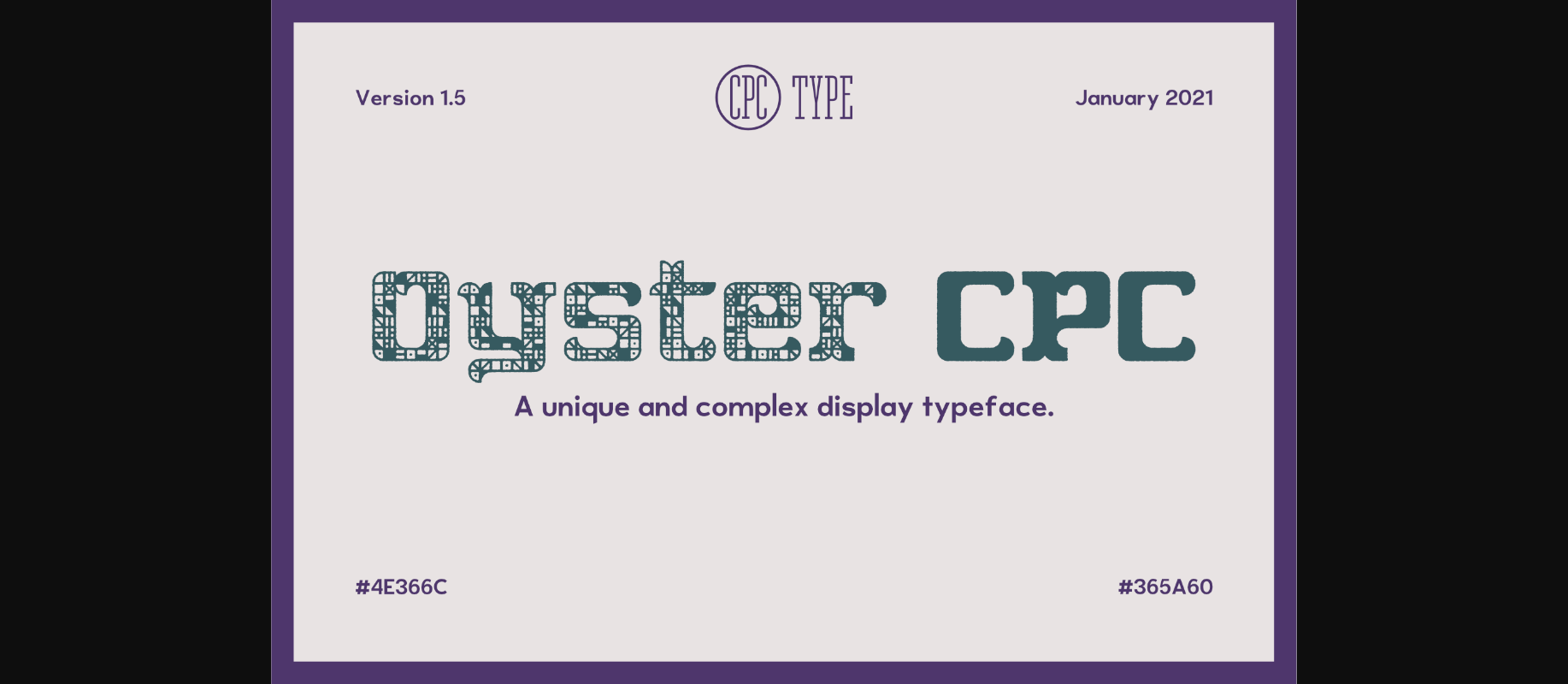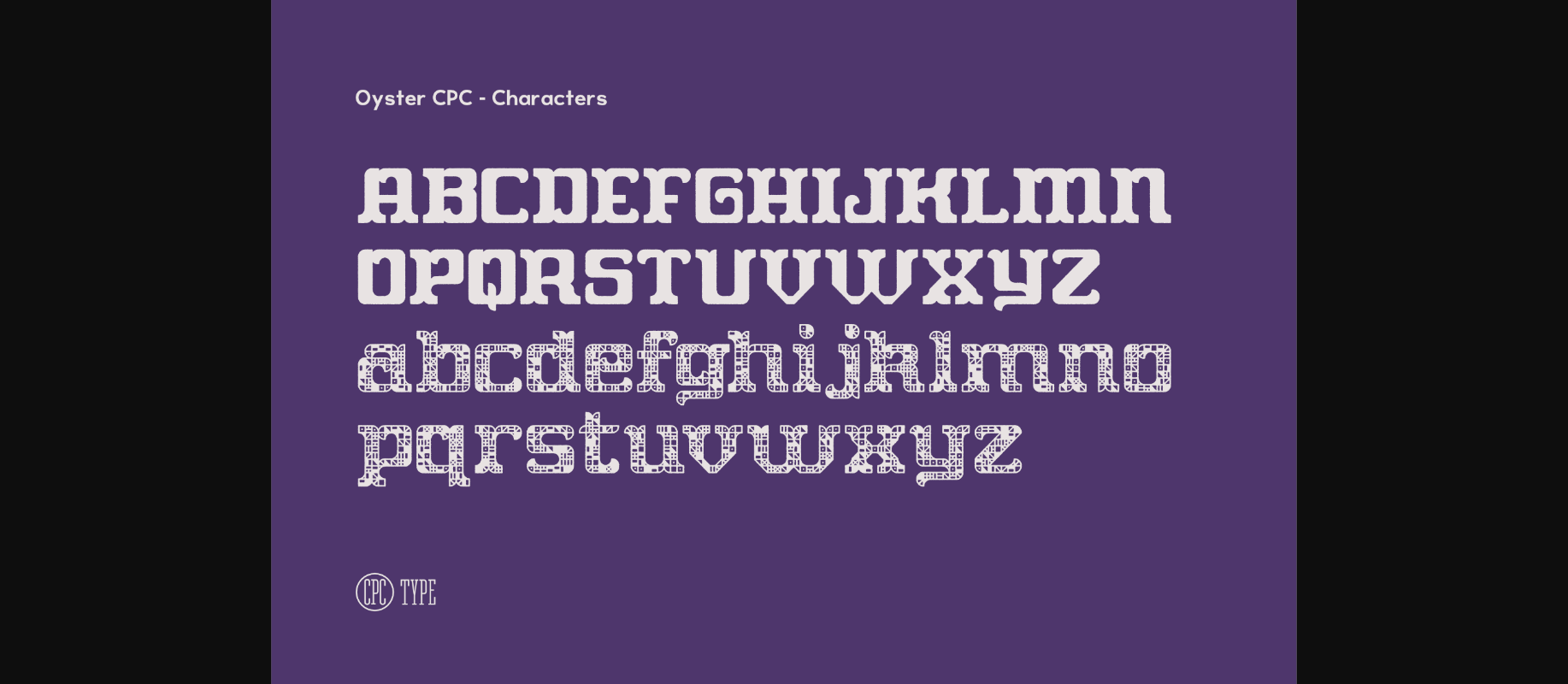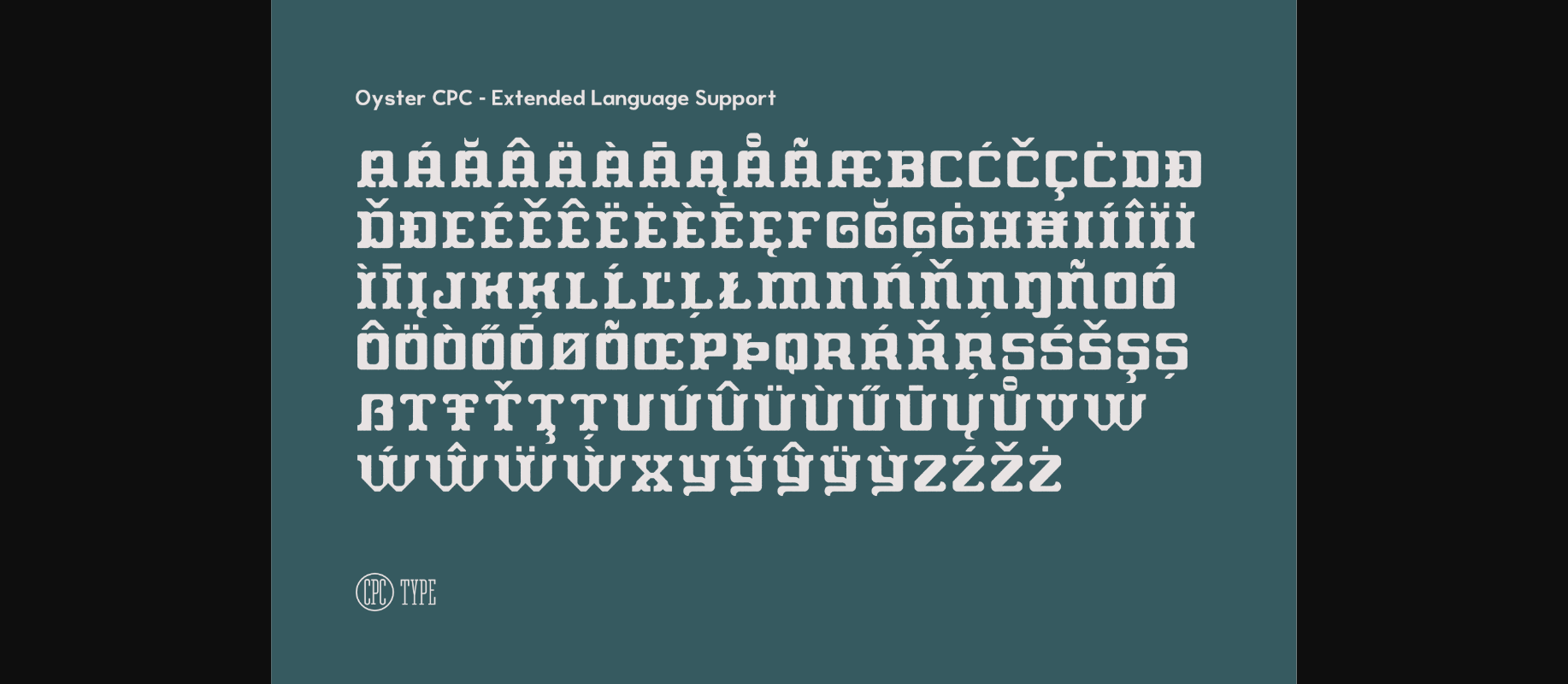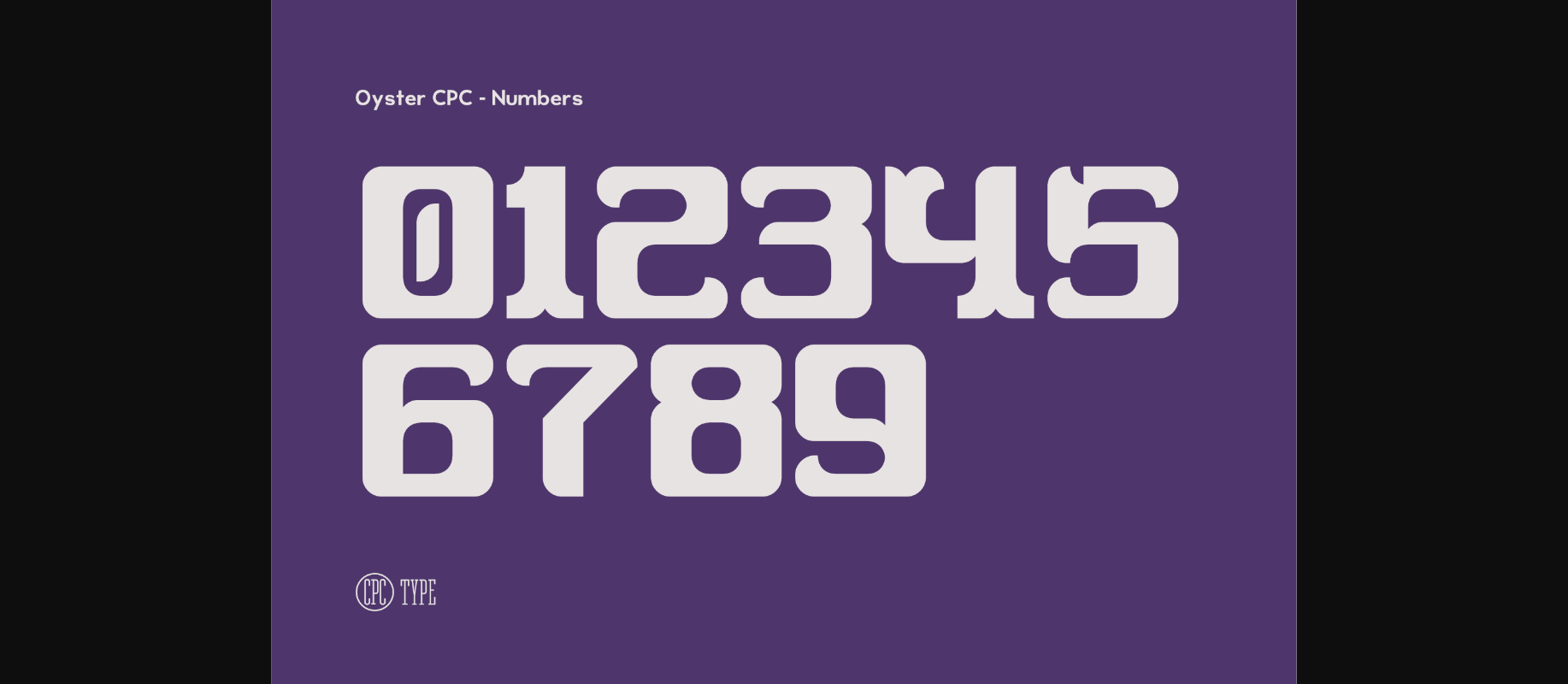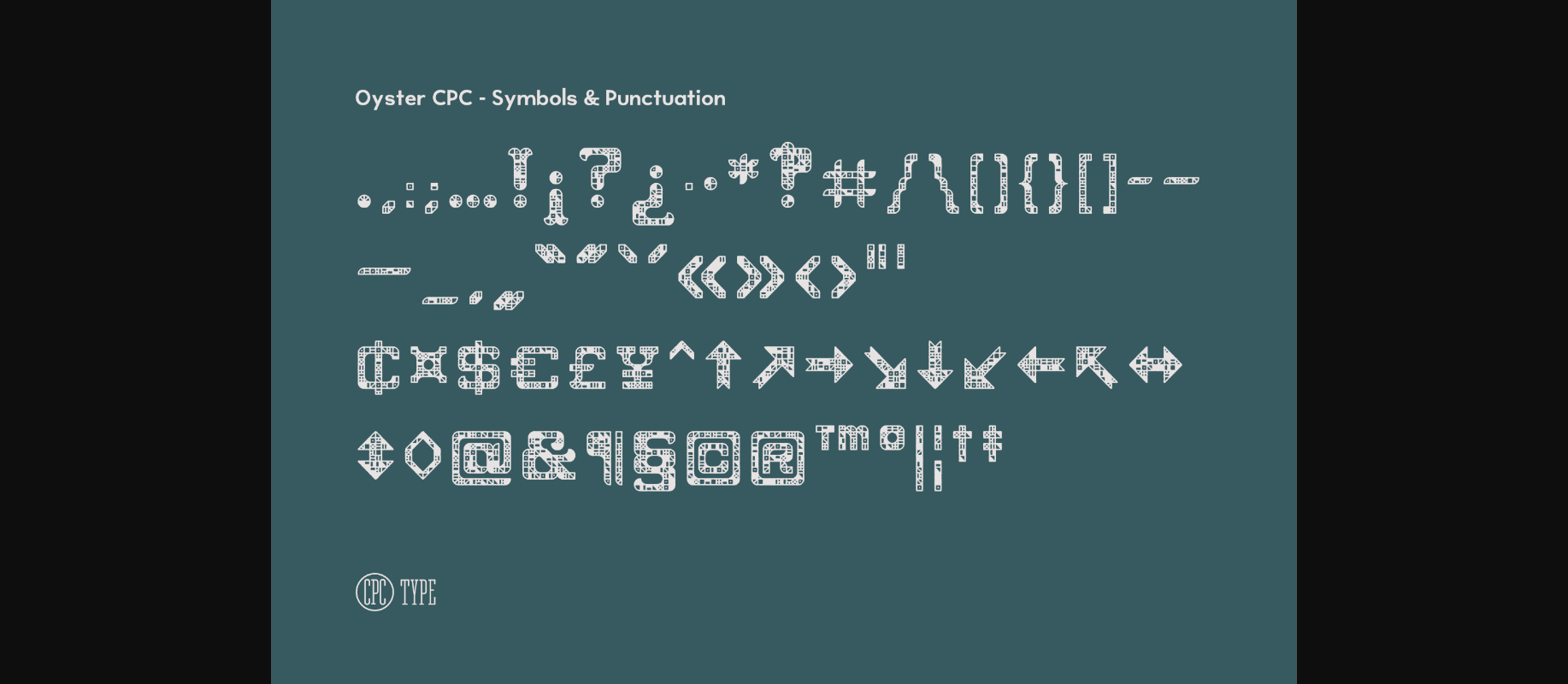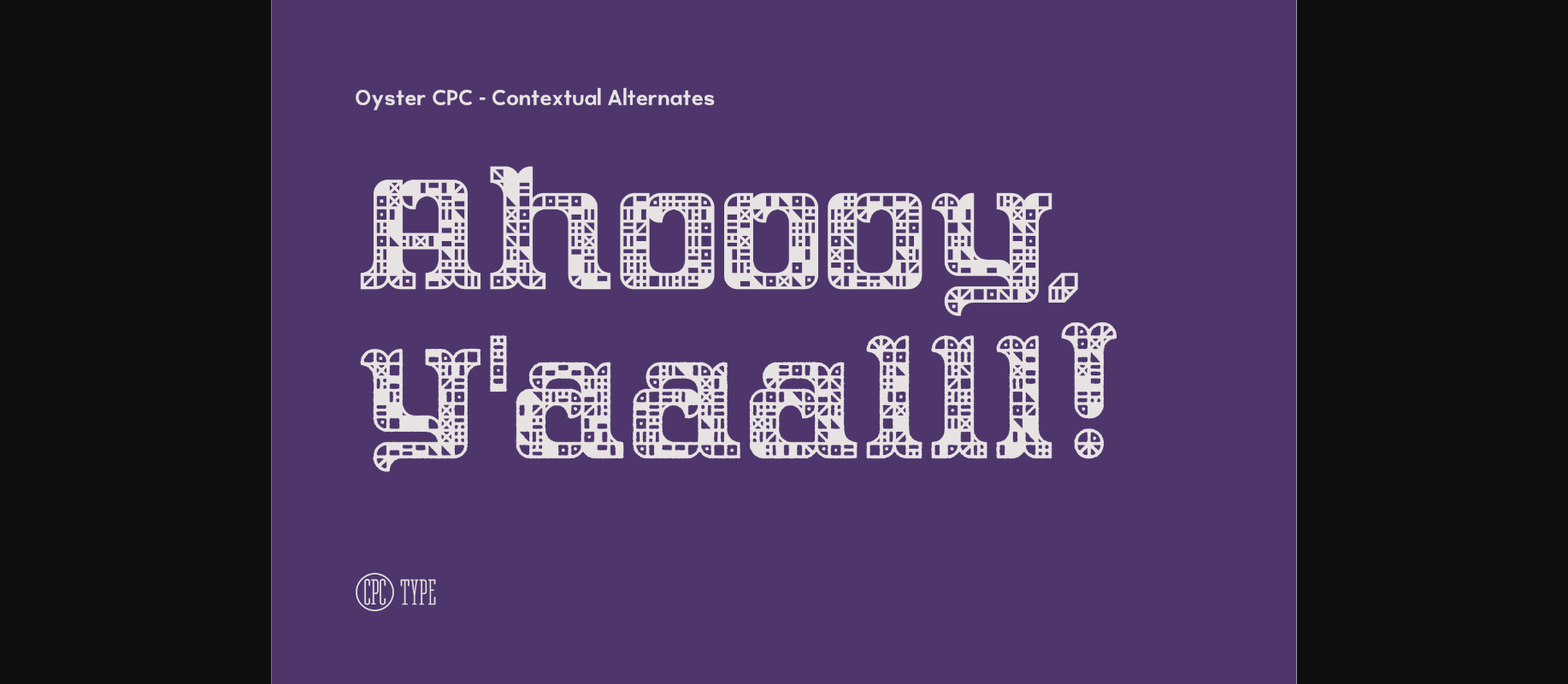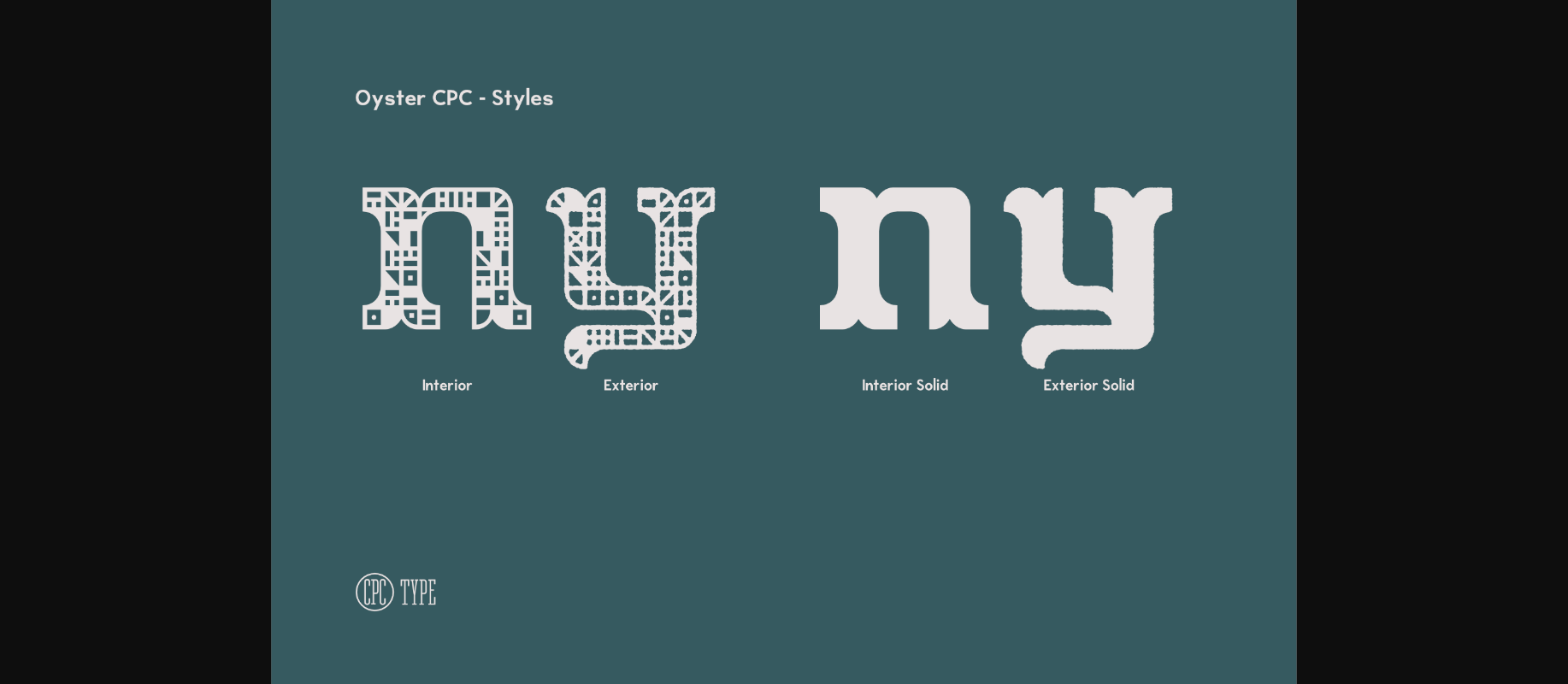
About Oyster CPC Font
Oyster CPC is a unique and originally designed decorative font. It is perfect for headlines, whether for sporting events, automotive posters, logo or monograms designs.